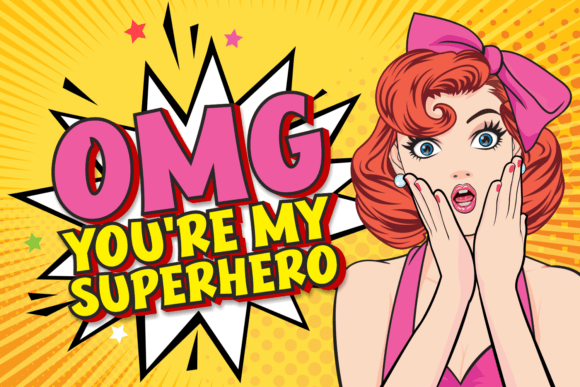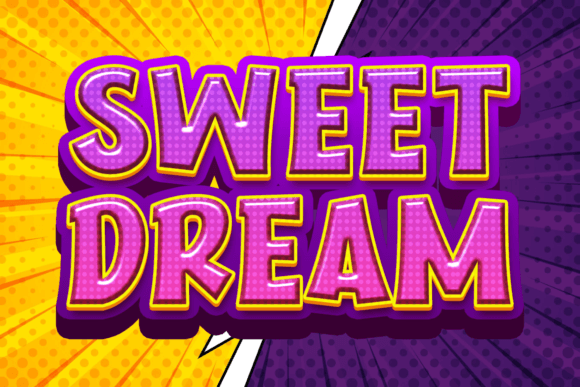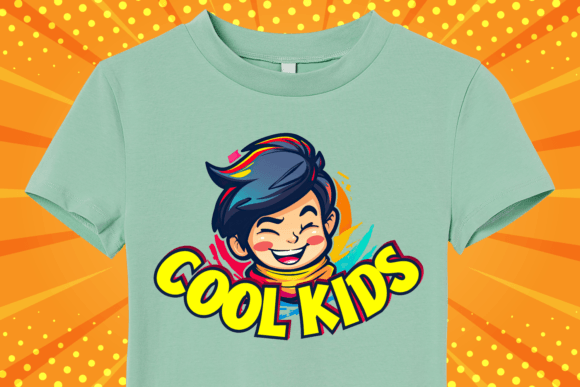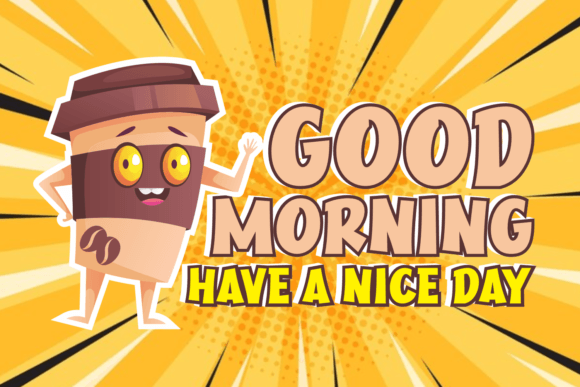
Introduction to Behave Yourself Font
Behave Yourself is a bold and dynamic superhero display font, designed to capture the larger-than-life energy and excitement of superhero themes.
With its bold, high-impact design, Behave Yourself is perfect for headlines, titles, logos, and any display use It draws the eye and creates a sense of urgency and excitement, making it ideal for attention-grabbing text.